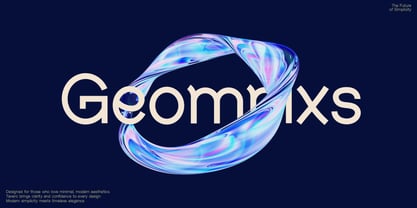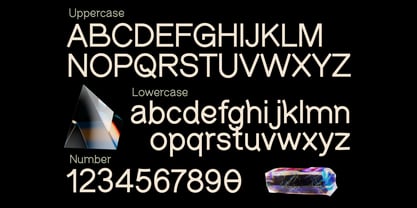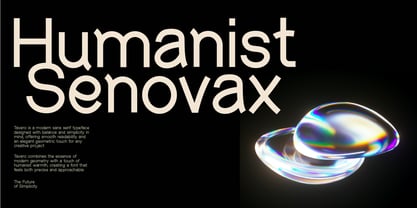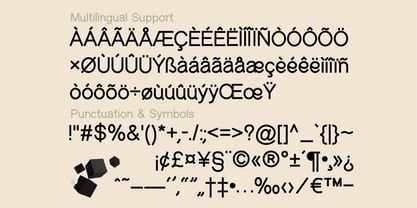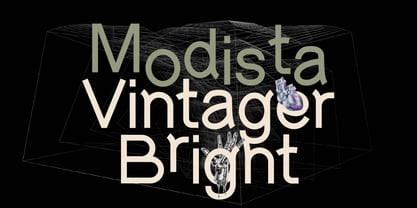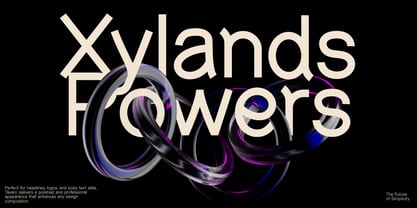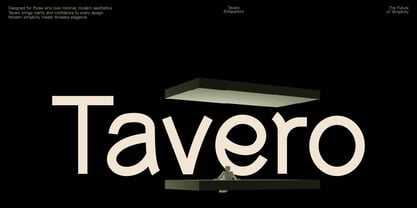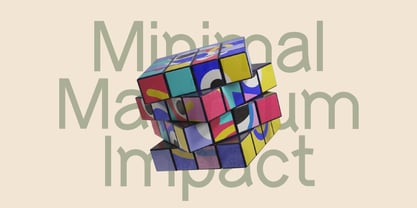
Tavero
The Tavero Font Family was designed by Eka Rifqi Setiawan and published by Erifqizefont. Tavero contains 1 styles. More about this family
Tavero is a modern sans serif typeface that embodies simplicity and sophistication. Designed with smooth curves, balanced proportions, and clean geometry, Tavero delivers a refined look that fits perfectly across branding, editorial, and digital projects. Its versatility makes it ideal for minimal design, professional layouts, and stylish typography compositions. Crafted with precision by Erifqizefont, Tavero blends clarity with timeless elegance — a font that speaks modernity in every letter.